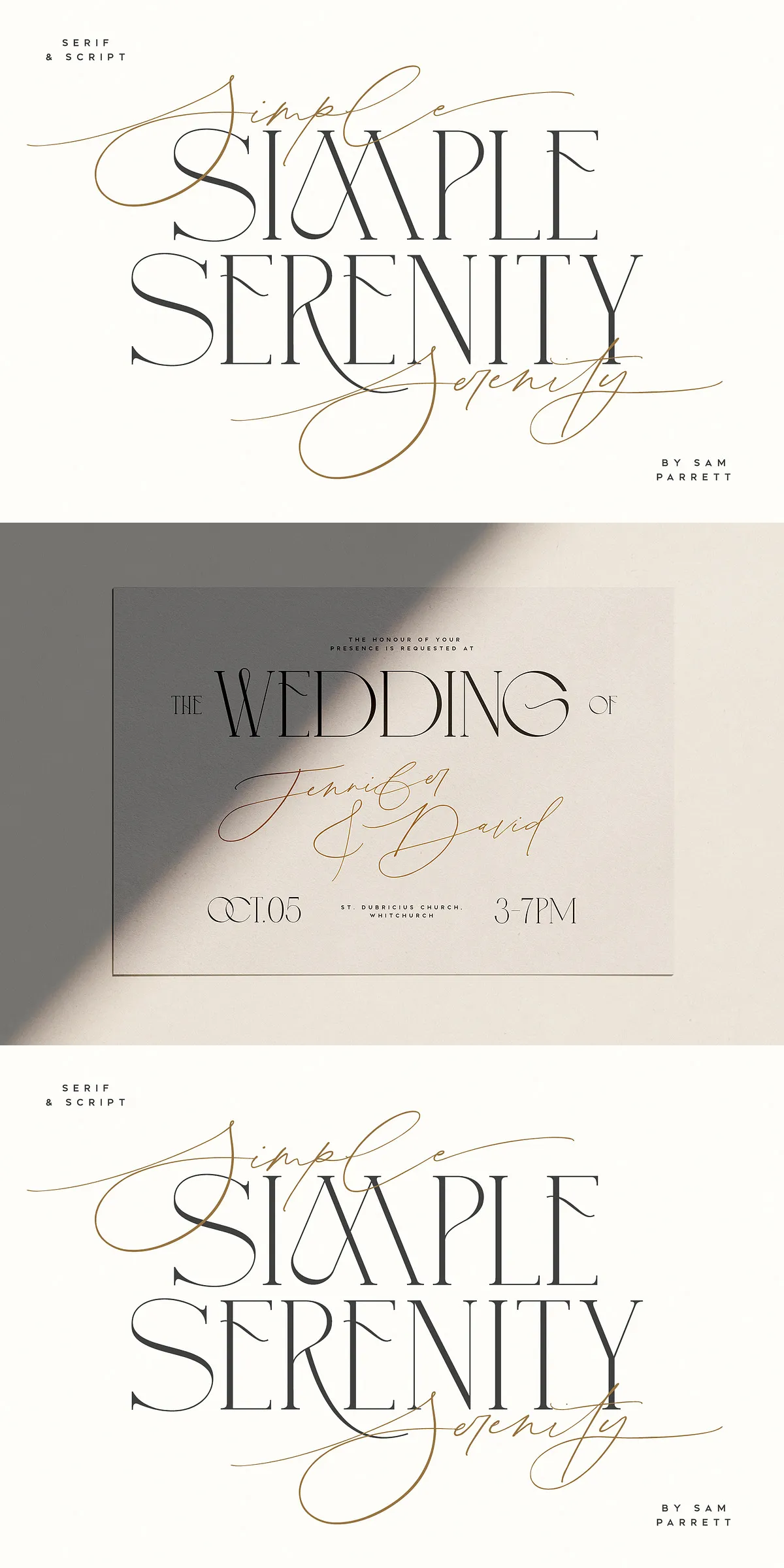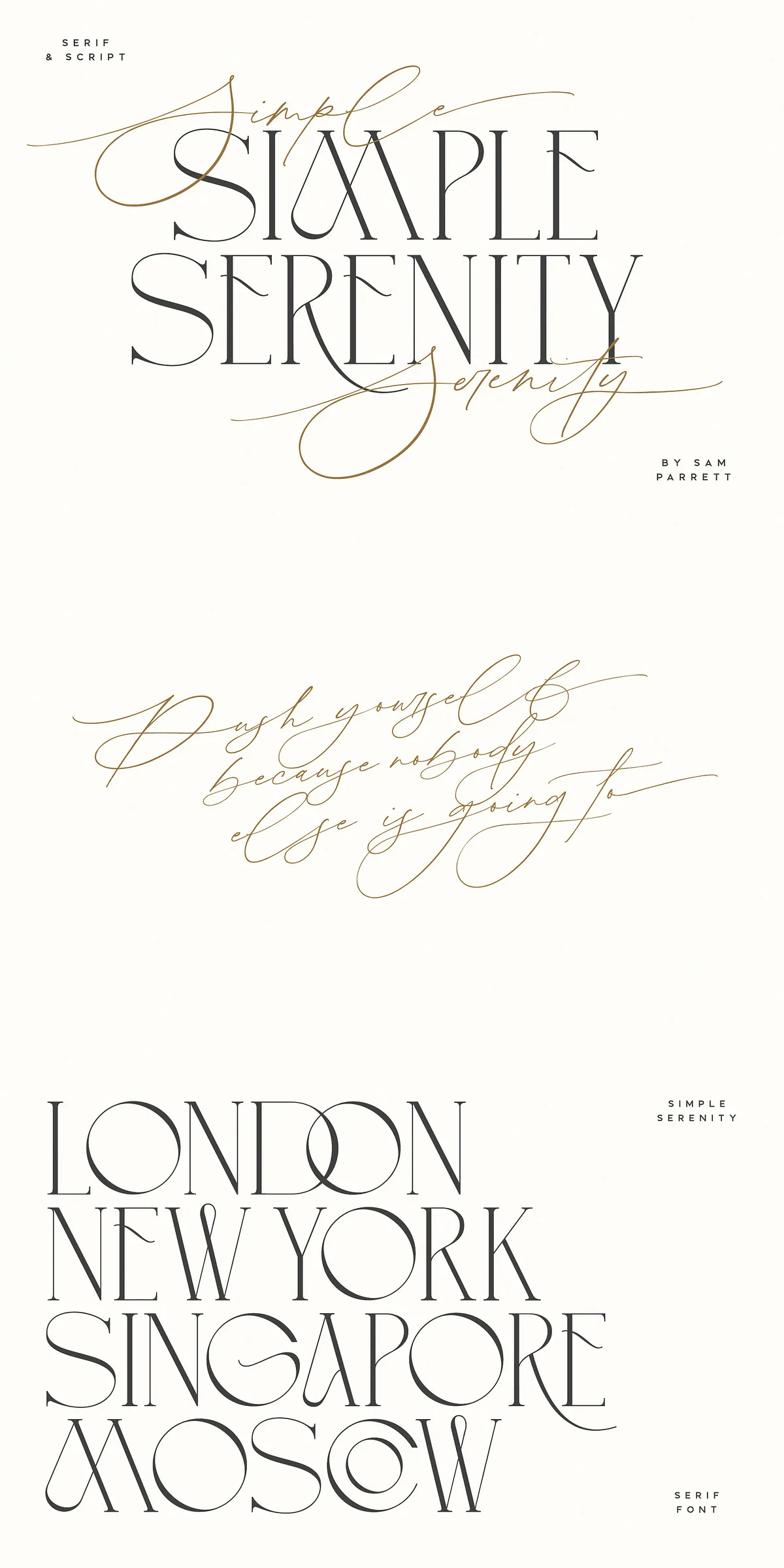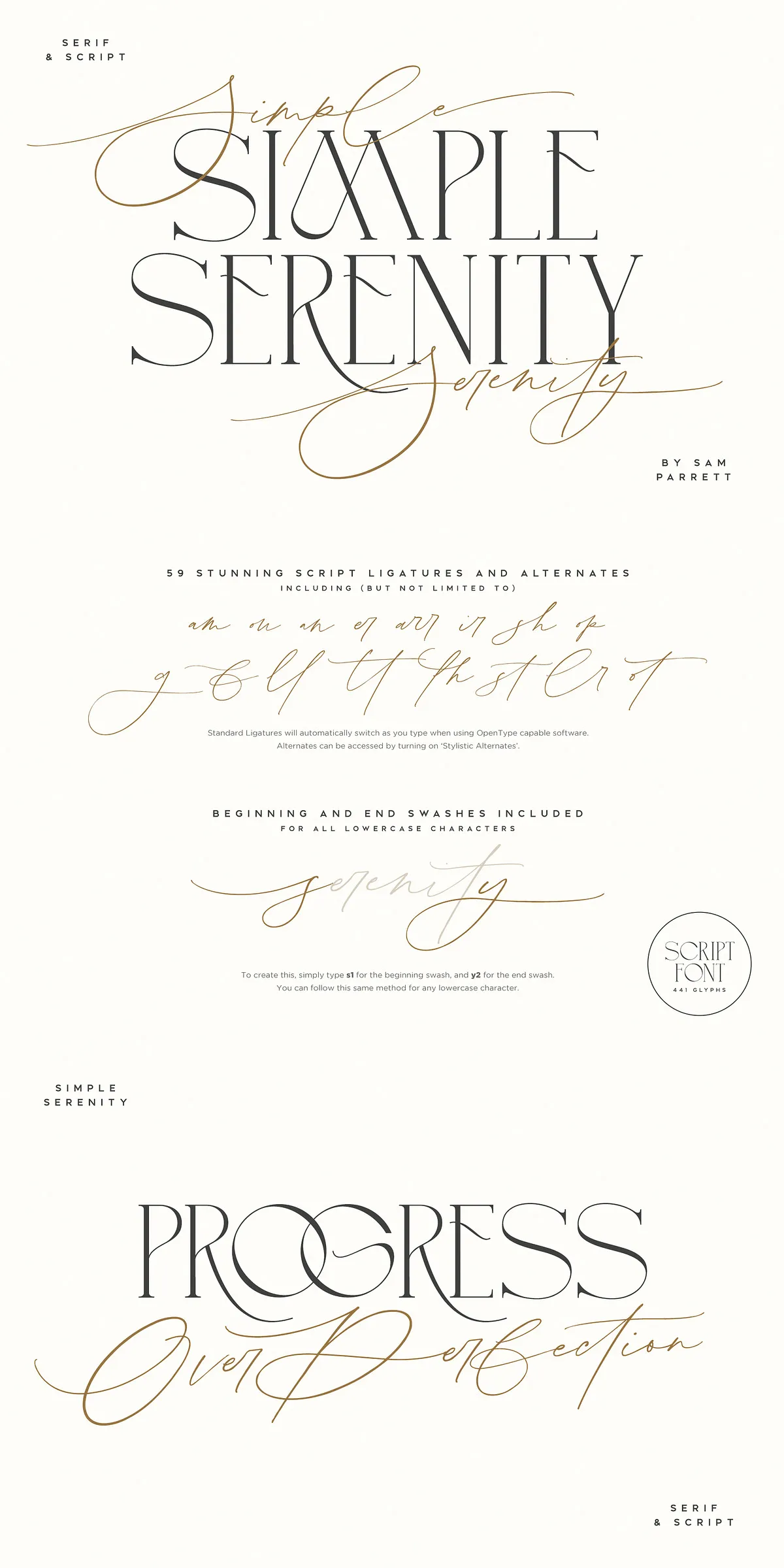
Simple Serenity Serif & Script
Unlock the art of refined typography with Simple Serenity Font Duo — a harmonious fusion of contemporary elegance and timeless grace. This meticulously crafted duo unites a clean, modern calligraphy script with a poised, minimal serif font to deliver unparalleled versatility for logos, wedding invitations, quote graphics, packaging, branding, and digital displays.
Why Simple Serenity Stands Out in Modern Typography
In a world flooded with generic fonts, Simple Serenity rises above with a rare combination of structure and soul. Each character is designed with deliberate intention — from the flowing curves of the script to the clean, balanced proportions of the serif. This duo doesn’t just type; it communicates emotion, taste, and precision.
Simple Serenity Script: Where Elegance Meets Expression
The script font captures the essence of hand-drawn artistry with a modern edge. Perfectly crafted for expressive use, it includes:
• Full upper and lowercase characters — for versatile text composition.
• All standard punctuation and numerals — ensuring readability and consistency.
• 50 premium ligatures — engineered to create seamless, fluid connections between letters for a custom-made appearance.
• 9 hand-selected alternate characters — available for d, k, f, g, h, i, j, t, y featuring delicate flourishes to enhance visual interest and authenticity.
• Beginning and end swashes — for every lowercase letter, allowing for dynamic styling in titles and signatures.
Use the script font to craft heartfelt wedding vows, poetic quotes, or luxury brand slogans. Its expressive nature instantly elevates static text into artful storytelling.
Simple Serenity Serif: The Anchor of Modern Minimalism
Complementing the script, the serif font provides a grounded, authoritative presence. Designed with clean lines and subtle contrast, it features:
• Uppercase-only character set — ideal for headings, logos, and powerful declarations.
• Complete punctuation & numerals — for professional layout integrity.
• 14 unique ligatures — adding subtle flair and visual rhythm to formal text.
• 10 stylish alternates — for Q, A, M, E, R, K, U, F, H, W, allowing precise customization for high-end branding.
This serif typeface serves as the perfect counterbalance — calm, structured, and authoritative — creating a sophisticated visual hierarchy when paired with the expressive script.
Unlock Full Creative Power with Advanced Typography Tools
Both fonts are engineered for professional use and feature rich OpenType functionality, ensuring maximum control and customization:
Use Ligatures and Alternates for Professional-Grade Results
To fully leverage the duo’s potential, make sure to enable:
• Standard Ligatures — for smooth, natural letter pairings (e.g., “fi”, “fl”, “th”).
• Stylistic Alternates — for alternate versions of specific characters.
Enable these functions to transform generic text into bespoke, high-end typography — instantly elevating your project’s aesthetic appeal.
Designed for Global Use: Full Multilingual Support
Simple Serenity Font Duo supports the full Latin 1 character set, making it ideal for international projects. It handles:
• English
• French
• Spanish
• German
• Italian
• Portuguese
• Dutch
• Swedish
• Norwegian
• Danish
• Finnish
• Hungarian
• Polish
• Turkish
• Icelandic
• Slovenian
• Indonesian
• Malay
No missing diacritics. No broken text. Just flawless typography — wherever your design takes you.
Where to Use Simple Serenity: Real-World Design Applications
For Wedding & Event Design
Create breathtaking wedding invitations, save-the-dates, place cards, and programs. The duo’s romantic flow and polished structure convey elegance and personalization — perfect for high-end event branding.
For Branding & Logo Creation
Design memorable logos that stand out. Use the script for a name, the serif for taglines — instantly creating a balanced, professional identity with emotional depth.
For Editorial & Social Media Graphics
Generate stunning quote cards, story visuals, Pinterest pins, and Instagram posts. The fonts’ expressive nature makes text instantly engaging and shareable.
Who Should Use Simple Serenity?
• Wedding planners designing luxury stationery.
• Graphic designers crafting premium brand identities.
• Art directors developing editorial layouts and campaigns.
• Entrepreneurs building niche fashion, lifestyle, or beauty brands.
• Content creators making visually engaging social media content.